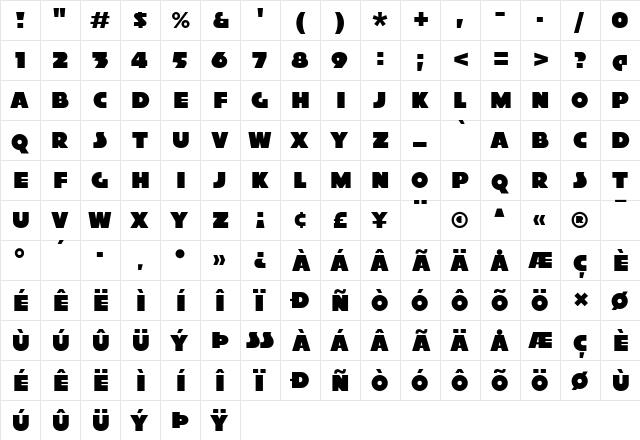
Xylitol Solo
Design Context for Xylitol Typeface
Xylitol offers clean, dependable letterforms without strong stylistic allegiance, making it a practical choice for designers who need flexibility.